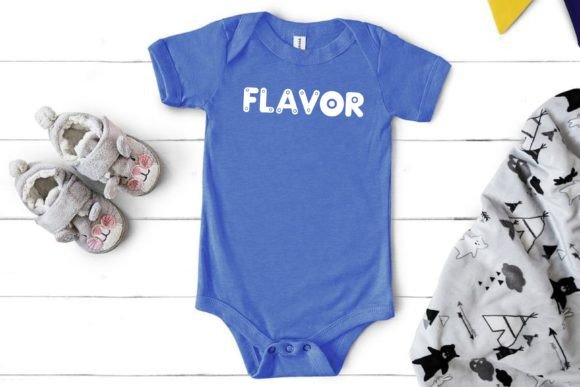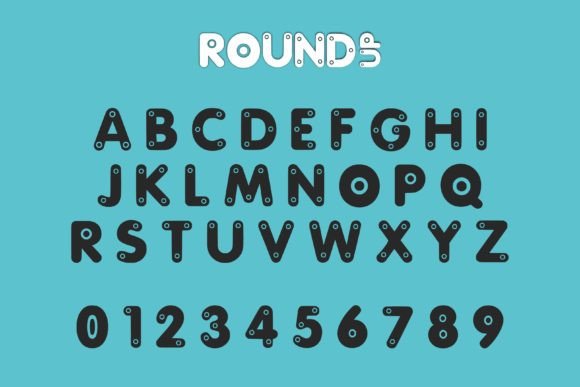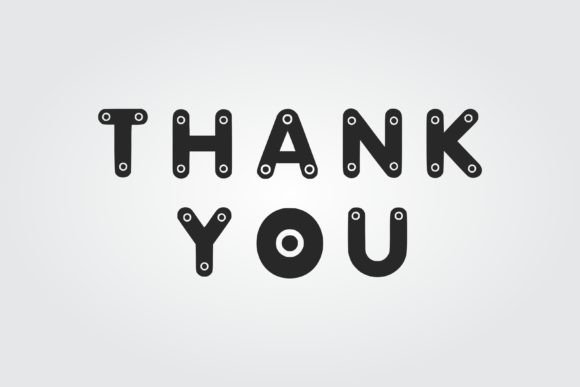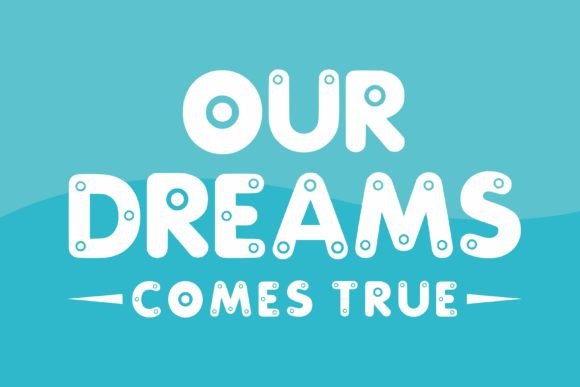
Have you ever been in the middle of a design project, scrolling through font options, and suddenly you stumble upon the perfect one? It’s like a spark of creativity hits you, and you know you’ve found the missing piece to bring your vision to life. For designers like you, finding the right font can be a game-changer.
That’s exactly what happened when I discovered the Round Up Font. This fun display font is more than just a pretty face – it’s a valuable design resource that can elevate your creative project to the next level.
Introduction to Round Up Font
The Round Up Font is a high-quality, free download that’s perfect for designers who want to add a little extra flair to their designs. With its friendly, bold, and quirky personality, this font is sure to stand out and make your design pop. Whether you’re working on a personal project or a commercial design, the Round Up Font is a great choice for anyone looking to add a unique touch.
Key Features of Round Up Font
- High-quality design resource with a transparent background, perfect for creative projects
- Includes a range of styles and weights, making it suitable for various design applications
- Unique characteristics: The Round Up Font features a distinctive rounded design, making it perfect for modern and playful projects
- Perfect for designers and artists working on creative projects, such as logos, graphics, and typography
Honest Review: Round Up Font
I recently had the chance to work with the Round Up Font, and I must say it’s been a great addition to my design resources. ✨
The font is free to download, which is always a plus, and the quality is top-notch. It’s perfect for any creative project that requires a unique touch. I’ve used it for several designs and it always looks great.
One of the standout features of the Round Up Font is its transparent background. This makes it easy to use in any design, whether it’s a logo, brochure, or social media graphic. It’s also great for creating a sense of depth and dimension in your designs.
Here are some of the key benefits of using the Round Up Font:
- High quality and crisp typography
- Perfect for creative projects that require a unique touch
- Transparent background for easy use in designs
However, I did notice that the font can be a bit heavy-handed in certain designs. If you’re not careful, it can overpower the rest of the composition. ⚠️
Overall, I’m really impressed with the Round Up Font and would definitely recommend it to fellow designers. It’s a great addition to any design toolkit, and with a little practice, it can be used to create some truly amazing designs.
Tips for Getting the Most Out of Round Up Font
To get the most out of the Round Up Font, experiment with different font sizes, colors, and styles. Use the font in combination with other design elements, such as images or graphics, to create visually appealing designs.
The Round Up Font is ideal for creative projects, such as:
- Presentation slides
- Document headers and footers